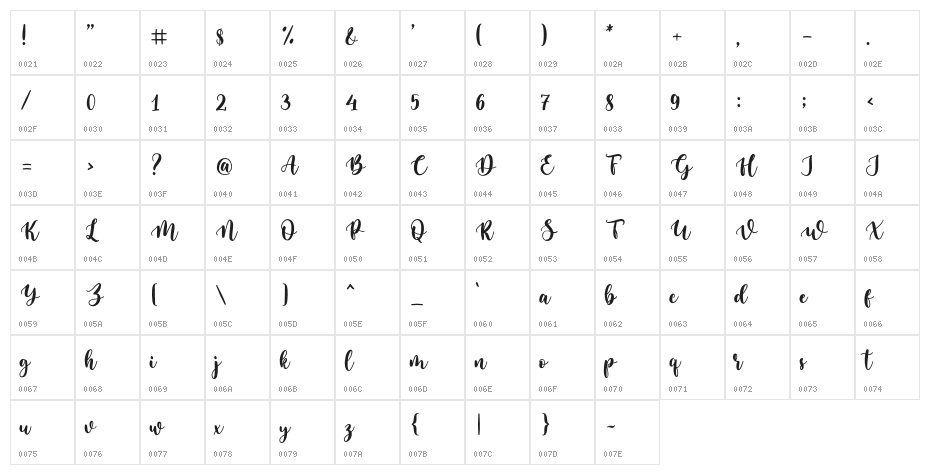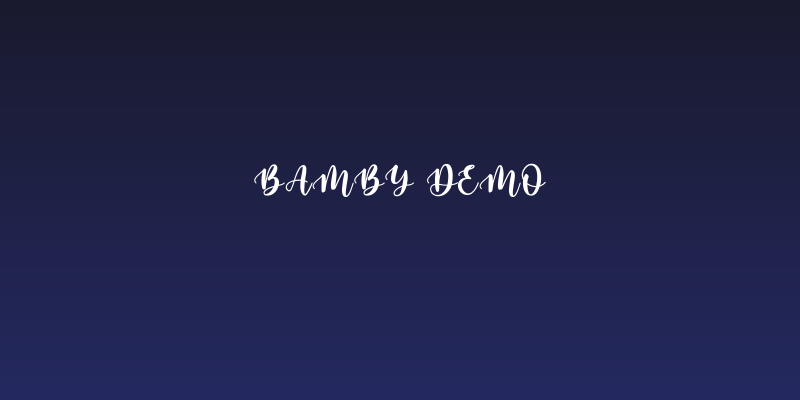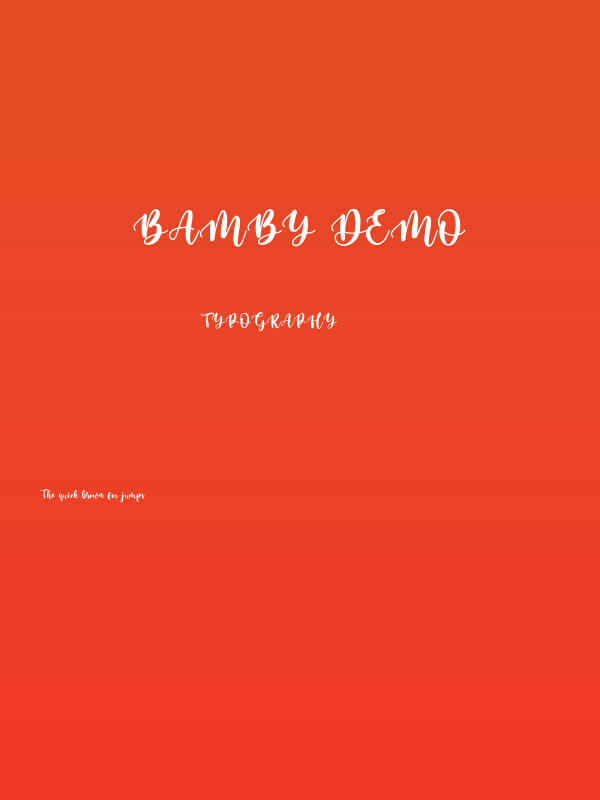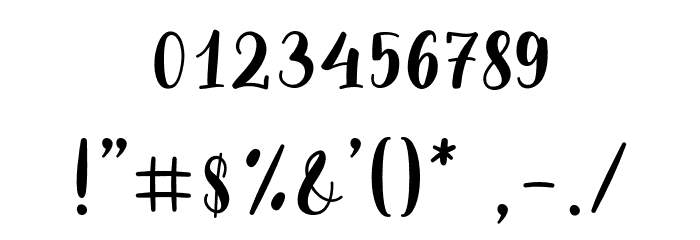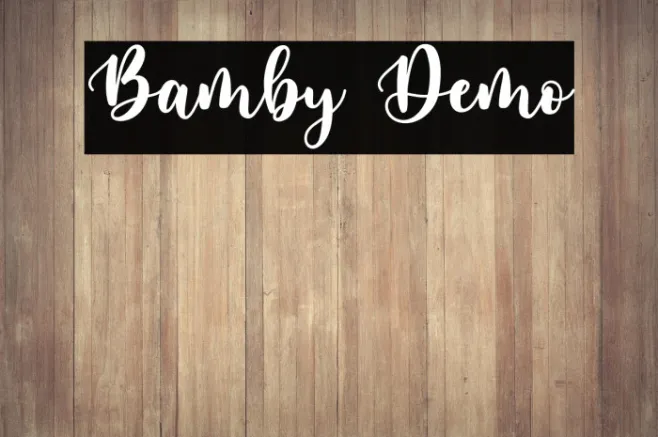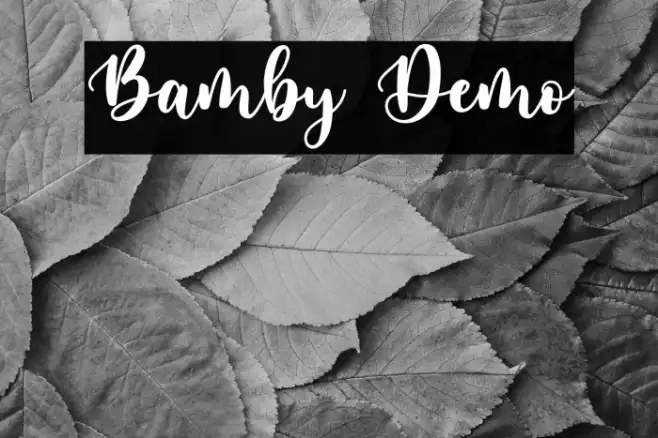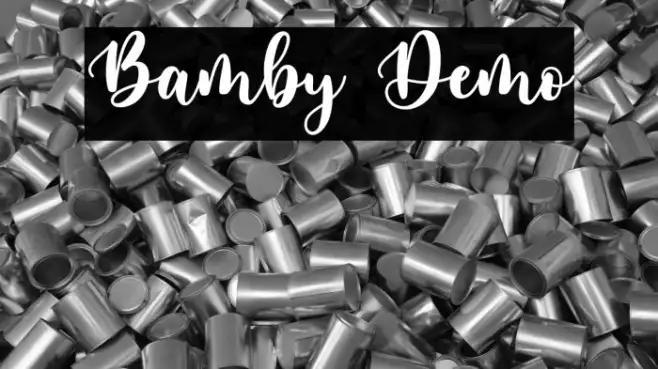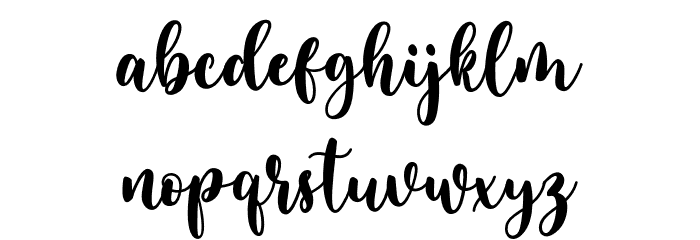
Bamby Demo Font
Bamby Demo Description
This font features a lively and elegant script style with a handwritten appearance. The characters are fluid and connected, creating a sense of movement and grace. The uppercase letters are bold and prominent, while the lowercase letters maintain a consistent flow with slightly exaggerated loops and curves. The numerals are clear and easy to read, complementing the overall aesthetic. Special characters are designed to match the playful yet sophisticated style, making this font suitable for a variety of creative applications.